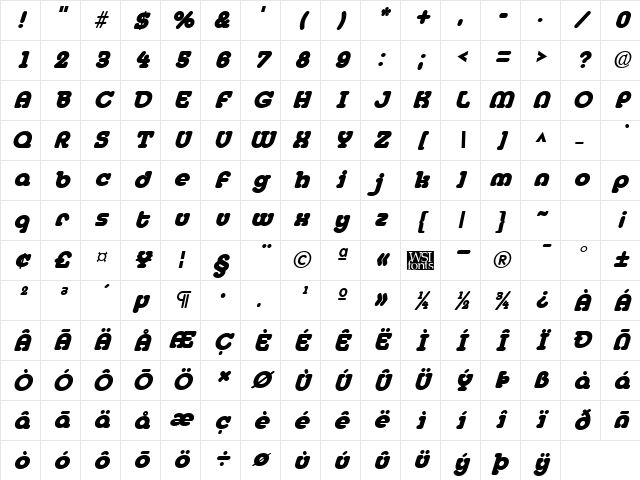
MedflyBlack Italic
MedflyBlack Family
Design Context for MedflyBlack
MedflyBlack is a composed and adaptable typeface that performs quietly and consistently across a wide range of design contexts. The slanted form adds forward momentum and visual energy.
Pro Tip: Use MedflyBlack for emphasis, pull quotes, and subheadings where its slanted energy can add rhythm to the layout.